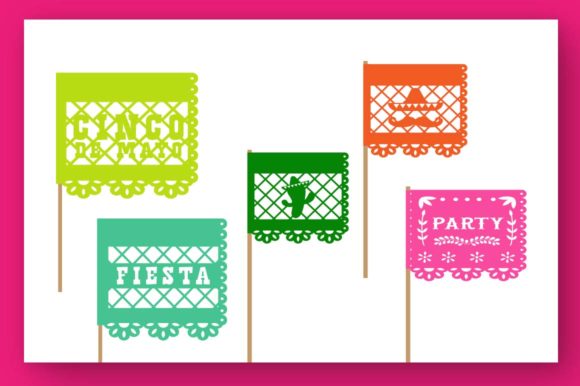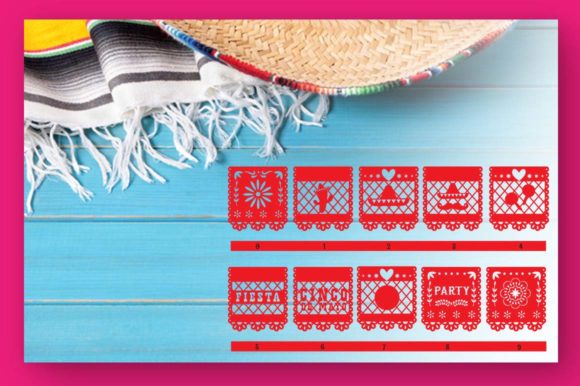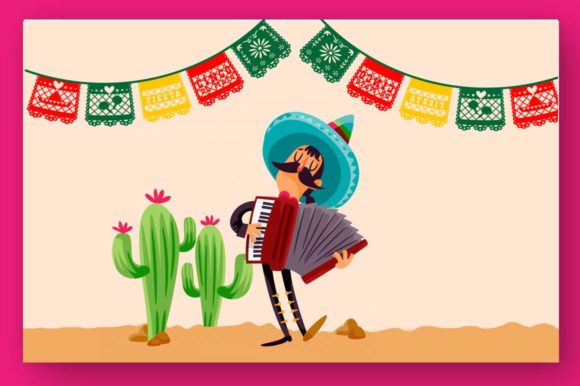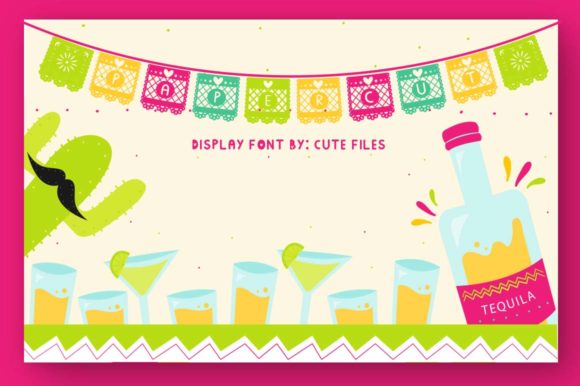
Papercut Blocks Font
About Papercut Blocks Font
Papercut Blocks is a unique dingbat font that draws inspiration from traditional Mexican papercutting techniques, known as papel picado. With its intricate and detailed designs, this font can add a touch of cultural flair to your invitations and other creative projects. Here’s how you can utilize Papercut Blocks to create stunning invitations:
1. Invitation Design: Use the various glyphs in Papercut Blocks to design your invitation. The font offers a range of decorative elements such as flowers, banners, frames, and borders, all inspired by the art of papel picado. Combine these elements to create a visually appealing and vibrant invitation design.
2. Text Styling: Experiment with different text styles using Papercut Blocks. The font offers unique and ornamental letterforms that can be used to highlight important details, such as the event date, time, and venue. Mix and match different glyphs to create eye-catching headers, titles, and headings.
3. Backgrounds and Borders: Utilize the decorative borders and frames in Papercut Blocks to create interesting backgrounds for your invitation. Incorporate the intricate designs to add texture and visual interest, giving your invitation a distinct and handmade look.
4. Color Palette: Embrace the colorful nature of traditional papel picado by using a vibrant color palette in your invitation design. The detailed designs in Papercut Blocks will come to life with bold and contrasting colors, creating a festive and celebratory atmosphere.
5. Theme Consistency: If you’re planning a themed event, such as a Mexican fiesta or a Dia de los Muertos celebration, Papercut Blocks can help tie the design elements together. Use the font’s decorative elements and motifs to maintain consistency throughout your event materials, including invitations, menus, and signage.
6. Envelope Embellishments: Extend the papercut theme to your envelopes by incorporating Papercut Blocks designs. Add decorative elements, such as flowers or small illustrations, to the corners or flaps of the envelope to create a cohesive and visually appealing package.
Remember to experiment with different combinations of glyphs and elements in Papercut Blocks to create unique and personalized invitation designs. Let the cultural and artistic inspiration of the font guide your creativity, and bring the rich tradition of papel picado to your invitations.